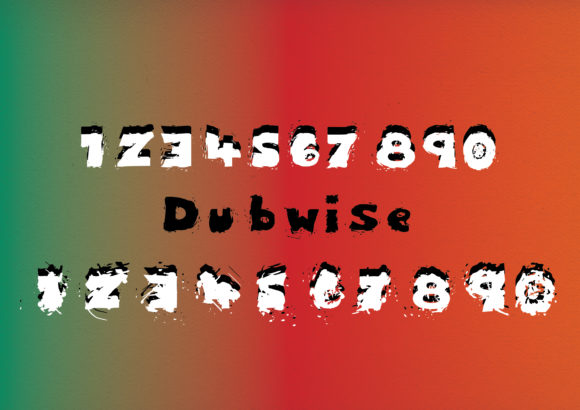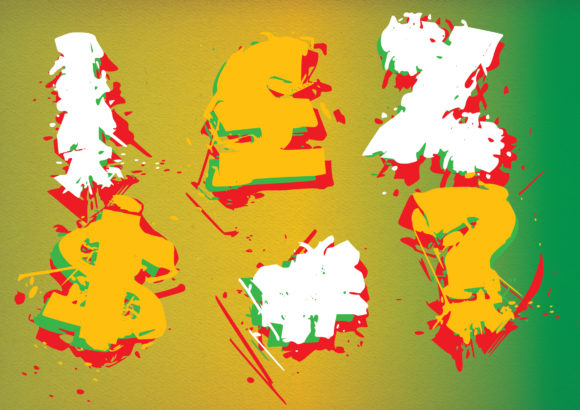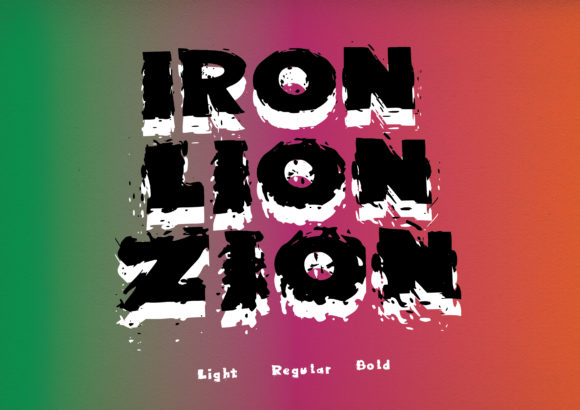
Reggae Brush Font
Reggae Brush is a Reggae-inspired font with a rough brush effect. Featuring three messy and affected font versions, this is your go-to typeface for achieving a natural and fun feel!